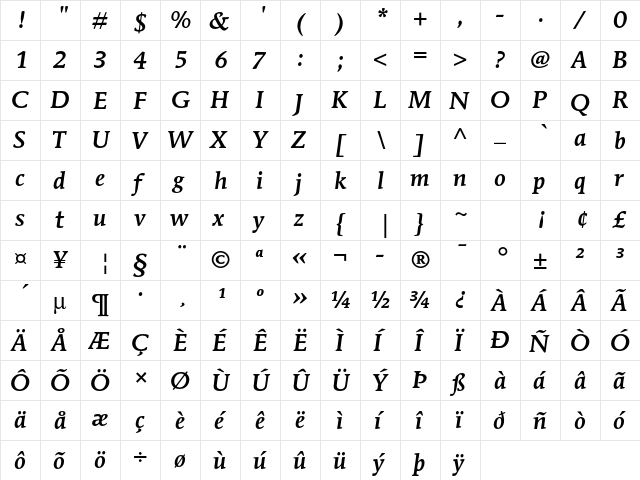
ITC Mendoza Roman Std Medium Italic Font Preview
ITC Mendoza Roman Std Medium Italic
| Designer | JosΠMendoza y Almeida |
Design Context for ITC Mendoza Roman Std Typeface
ITC Mendoza Roman Std is a composed and adaptable typeface that performs quietly and consistently across a wide range of design contexts. The dynamic lean of this cut emphasises speed and emphasis in any layout.
Pro Tip: Use ITC Mendoza Roman Std for emphasis, pull quotes, and subheadings where its slanted energy can add rhythm to the layout.